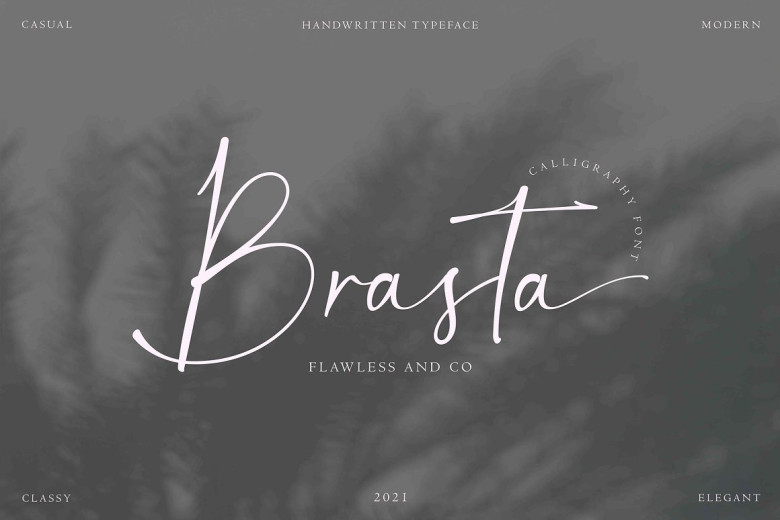
Brasta Font
Brasta Handwritten Script Font, Modern Font, Canva Font, Wedding Font and Crafted Font are handcrafted modern fonts created to be used in branding materials such as posters, business cards and t-shirts. This style can also be utilized for modern calligraphy work and wedding font design projects.
Brasta Handwritten Font